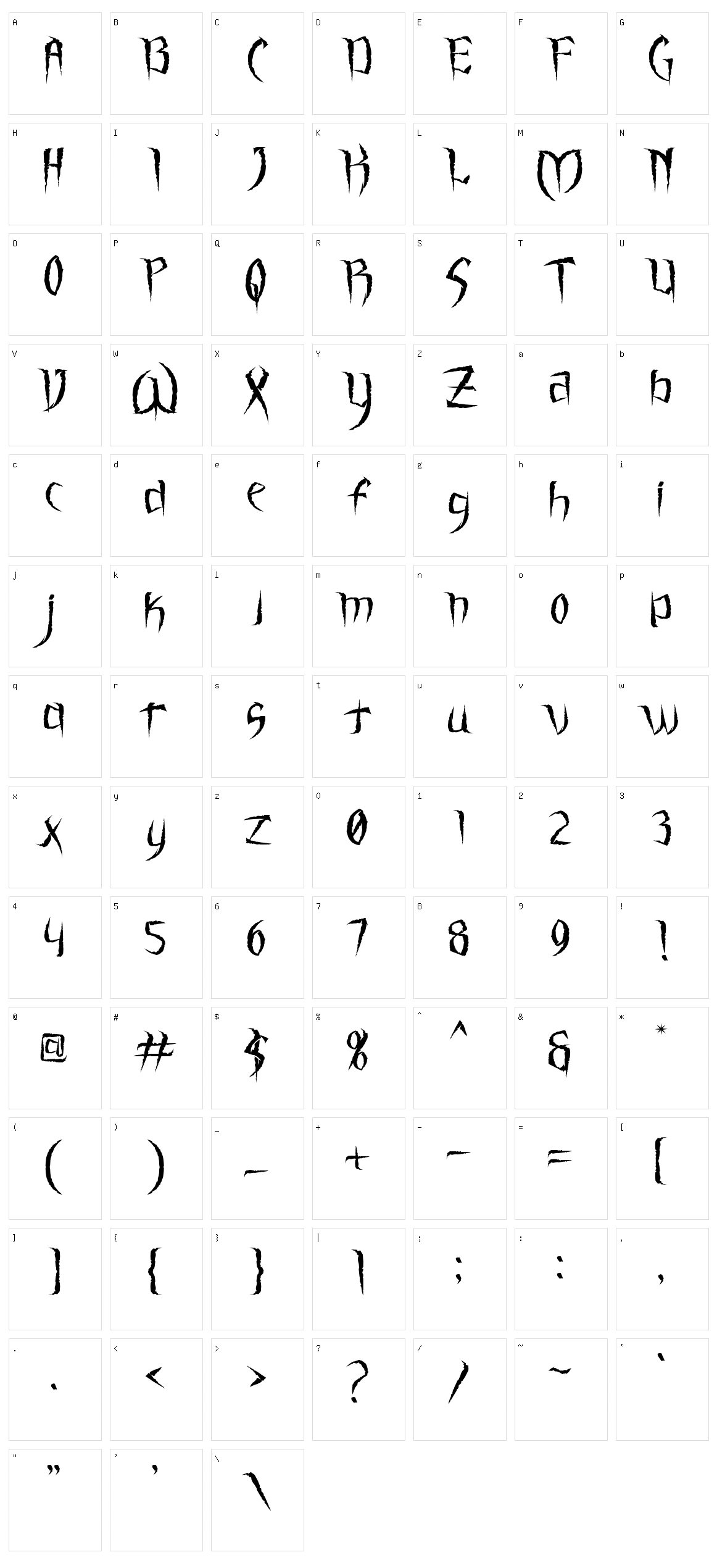
The free font Dark Widow is carefully designed by Faqih Fawaji, showcasing a thoughtful balance of creativity and usability and falls under the Halloween font style. When you download the ZIP file, it contains only 76.18 KB of font files, making it lightweight and quick to download. Please review the license details below to understand permitted usage and distribution rights. If license information is not available, we recommend using this font for personal projects only or contacting the author directly for commercial usage permissions.